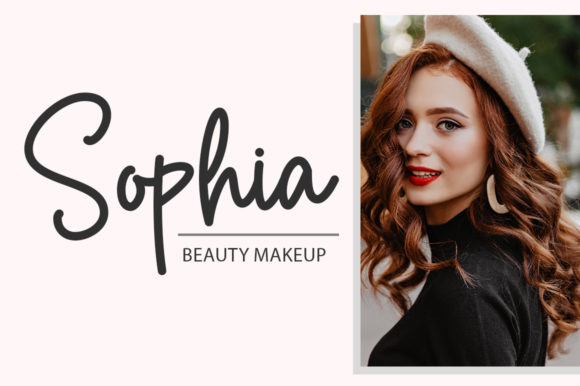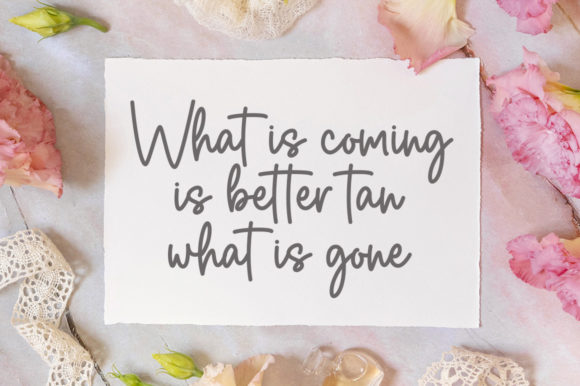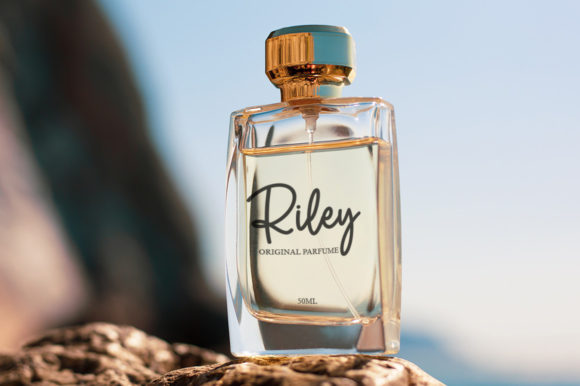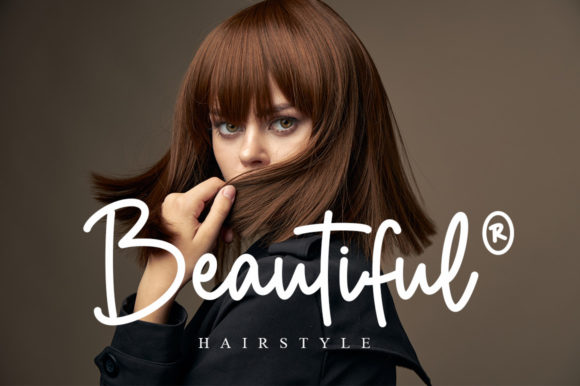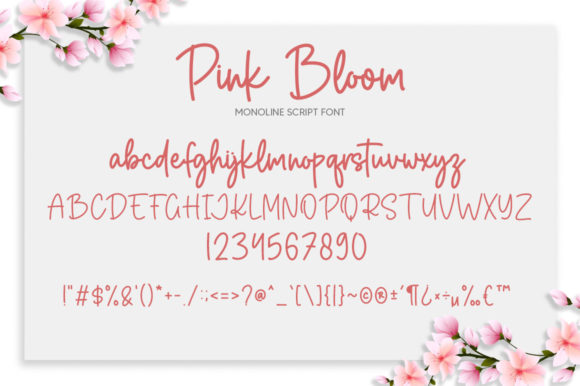
Introduction to Pink Bloom Font
Pink Bloom is a dainty and flowing handwritten font.
Sweet and joyful, this font will be ideal for writing wedding invitations, cards, or any other design that may need a romantic, personalized touch .
Key Features of Pink Bloom Font